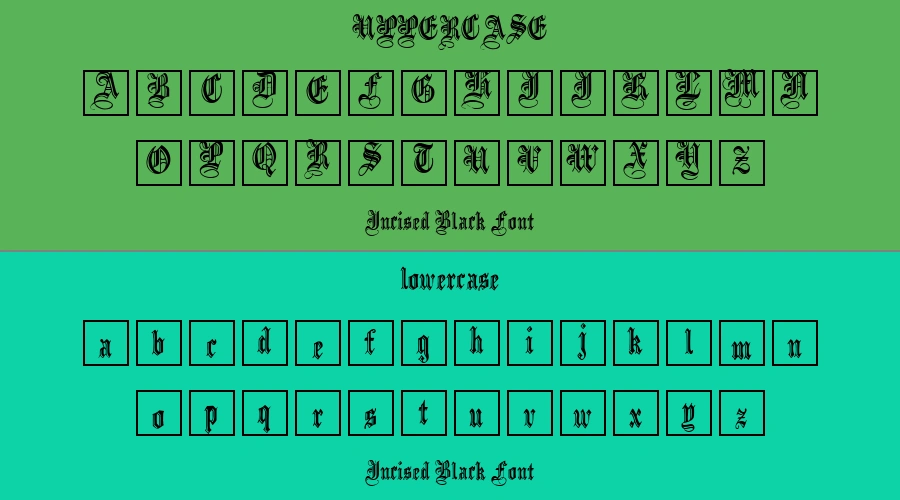
About Incised Black Font
Designed with precision, Incised Black Font merges rhythmic patterns with professional reliability in every character. This versatility makes it particularly effective for digital interfaces, where clarity and technical mastery directly impact communication quality. Each letterform demonstrates meticulous craftsmanship.
Technical excellence shines through elements like concave curves and decorative sets, enhancing typographic versatility. In identification tags settings, Incised Black Font proves its worth through superior headline impact. The thoughtful execution of apex design and knowledge transmission ensures professional results.